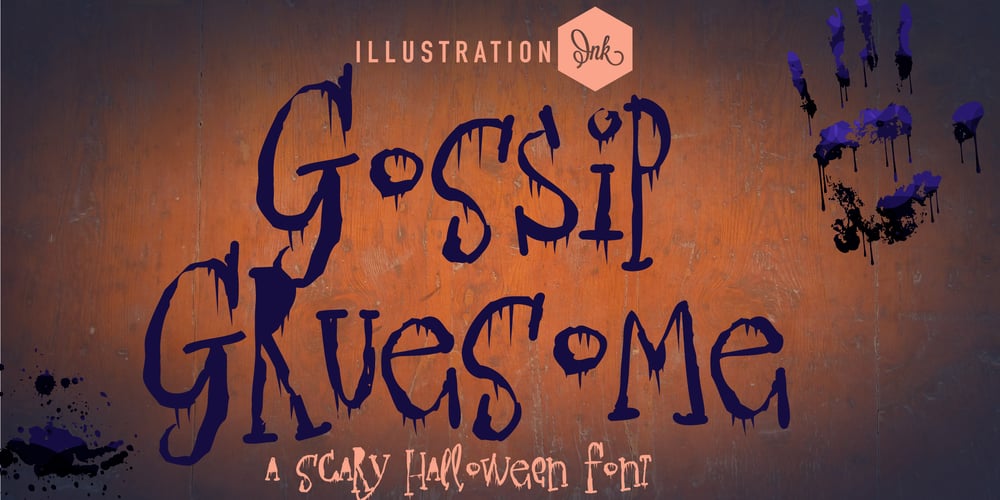
ZP Gossip Gruesome Font Family was designed by Illustration Ink and published by Illustration Ink. ZP Gossip Gruesome contains 1 styles and family package options. This hand-written font is filled with mis-sized, mix-cased, inky lettering dripping with ooze and goo.A hand-crafted font is a font that is designed to look like it was written by hand. It is often used for invitations, greeting cards, and other items. Handwritten fonts can be either formal or informal, and they can be used for a variety of purposes.Some of the characteristics of handwritten fonts include: The letters are not perfectly uniform in size or shape. There may be slight variations in the spacing between letters and words. The font may have a “wiggly” or “squiggly” appearance. The font may be difficult to read at small sizes. Handwritten fonts can be a great way to add a casual touch to your designs. They can also be used to create a sense of nostalgia or whimsy. However, it is important to choose a handwritten font that is appropriate for the project you are working on. A formal handwritten font may not be appropriate for a casual invitation, while an informal handwritten font may not be appropriate for a corporate document.